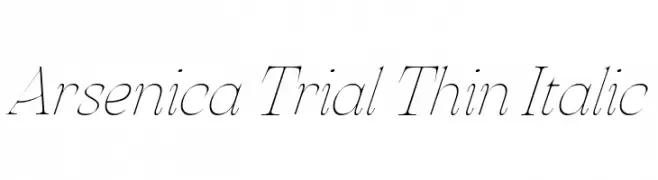
A high-contrast, elegant serif font with refined strokes and classic flair.
A modern, italicized font with medium contrast and bold strokes.
A thin, italic typeface with elegant, flowing lines and a modern aesthetic.
A high-contrast serif font with elegant, sharp serifs and a modern classic style.
A bold, italic serif font with dramatic serifs and a modern flair.
A bold, italic font with high contrast and dynamic style.
A bold, high-contrast serif font with a dramatic and elegant style.
A bold, high-contrast font with a modern, geometric style.
A thin, elegant serif font with high contrast and a modern touch.
An elegant script font with intricate swashes and high contrast, perfect for formal designs.